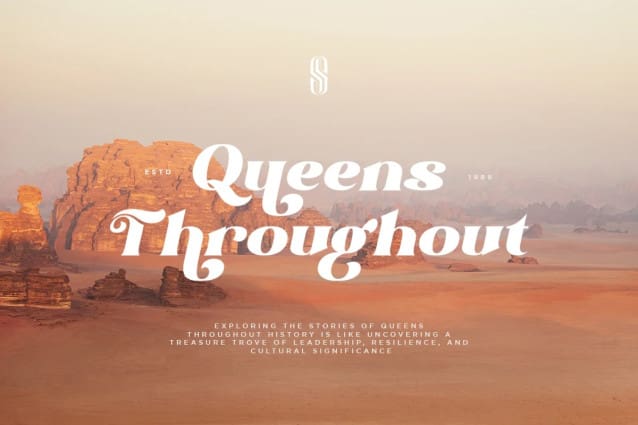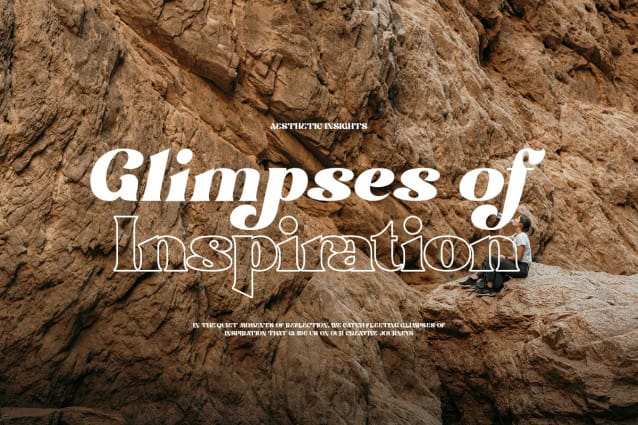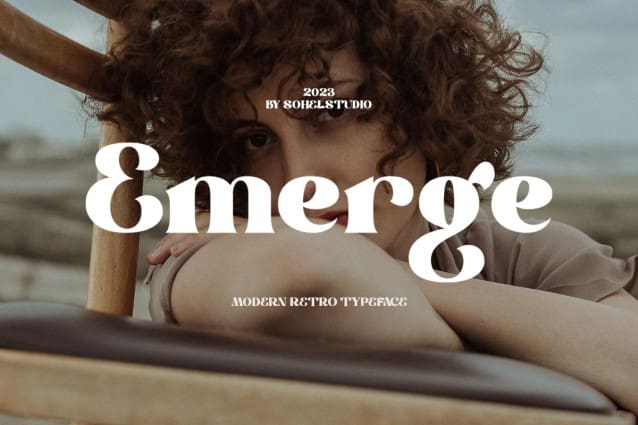
Emerge Font
Emerge Font is a captivating typeface with a unique and bold serif display style. Featuring distinctive thick lines, each letter exudes strength and firmness. This font combines classic serif elements with modern touches, creating a visually striking and bold appearance.
Emerge Font evokes elegance while maintaining a modern edge, making it ideal for graphic design projects, posters, and layouts that require unforgettable visual appeal.